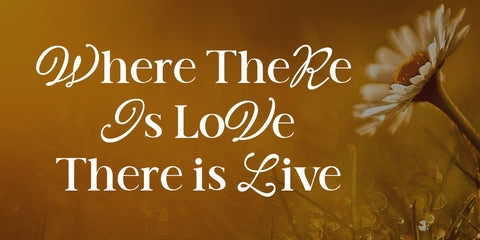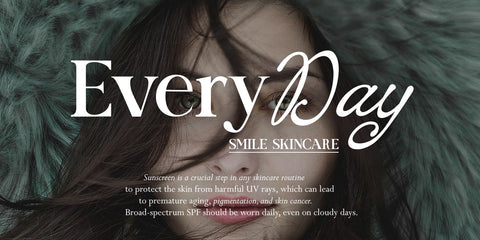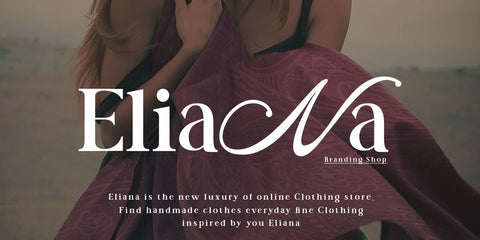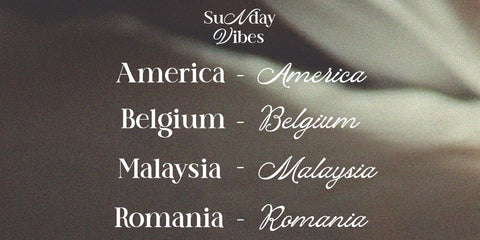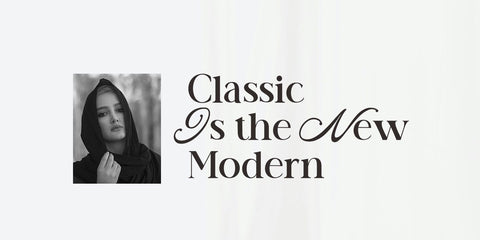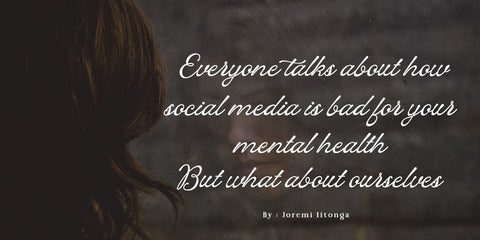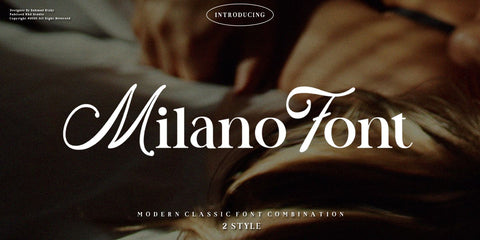
milano font
milano font is a beautiful and inspiring blend of modern classic and serif. Available in 2 versions, Regular & Modern Classic.
milano font is made primarily for headlines, titles, and other short texts and is perfect for advertising, vintage mood boards, branding, logos, packaging, titles, editorial designs, modern logos, websites, social media quotes, wedding branding, modern and vintage designs.